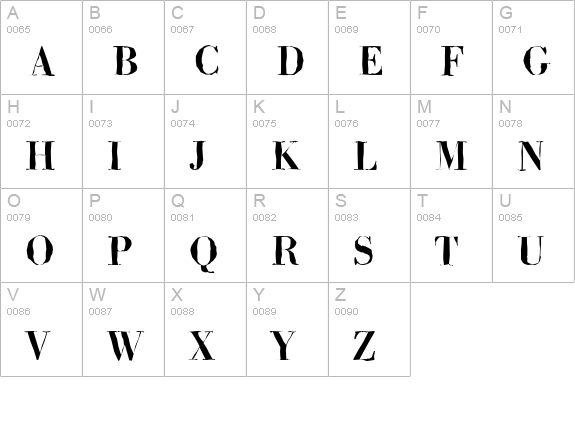
BodoniAntique-Medium-Regular is a balanced, medium-weight variant in the BodoniAntique typeface family \xE2\x80\x94 well suited to sub-headlines, navigation, and balanced editorial work.
BodoniAntique-Medium-Regular font is a timeless and elegant typeface that exudes sophistication and class. With its classic serif design and balanced proportions, this font is perfect for a wide range of design projects, from branding to editorial work. The clean lines and sharp serifs of BodoniAntique-Medium-Regular make it a versatile choice for both print and digital applications. The best part is that this exquisite font is available for free download at FontsMarket.com. Now you can elevate your designs with the timeless beauty of BodoniAntique-Medium-Regular without having to spend a dime. Whether you're working on a high-end branding project or a stylish editorial layout, this font will add a touch of refinement and elegance to your work. Download BodoniAntique-Medium-Regular today and take your designs to the next level.